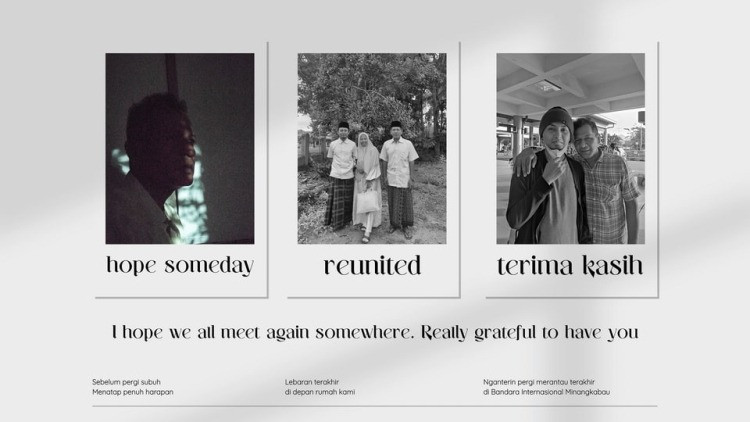
Dalfitra Font is a contemporary serif typeface featuring sophisticated high-contrast letterforms. With its modern aesthetic the font is ideal for branding and editorial use, logo creation and typography artworks.
| Classification: | Display Fonts, Serif Fonts |